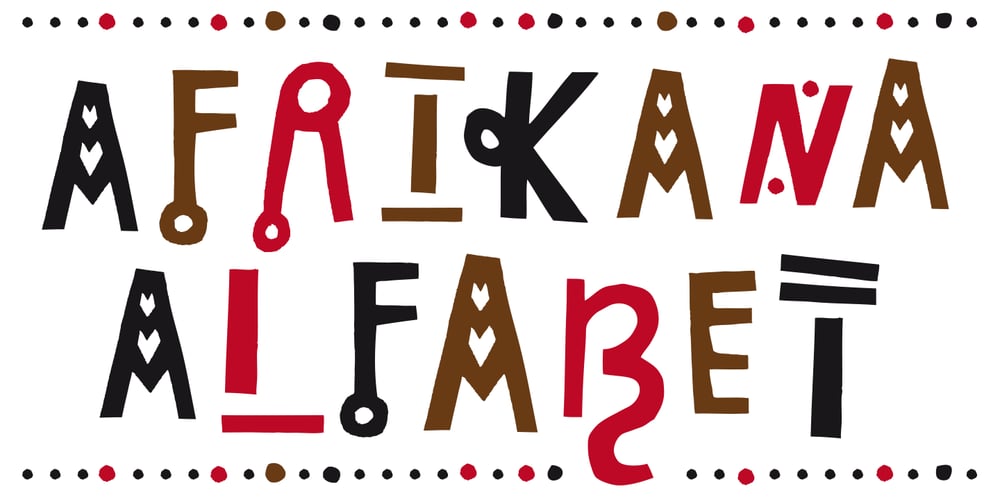
Afrikana Font Family was designed by Mina Arko and published by Mina Arko. Afrikana contains 1 styles and family package options. Afrikana is based on various African letters and signs. The main inspiration for making this typeface was the book by Saki Mafundikwa, Afrikan Alphabets. Letters were designed based on signs and characters from African alphabets. They were than cut out of cardboard, scanned, traced and put in a font. You are free to modify the font in any way and have fun with it.